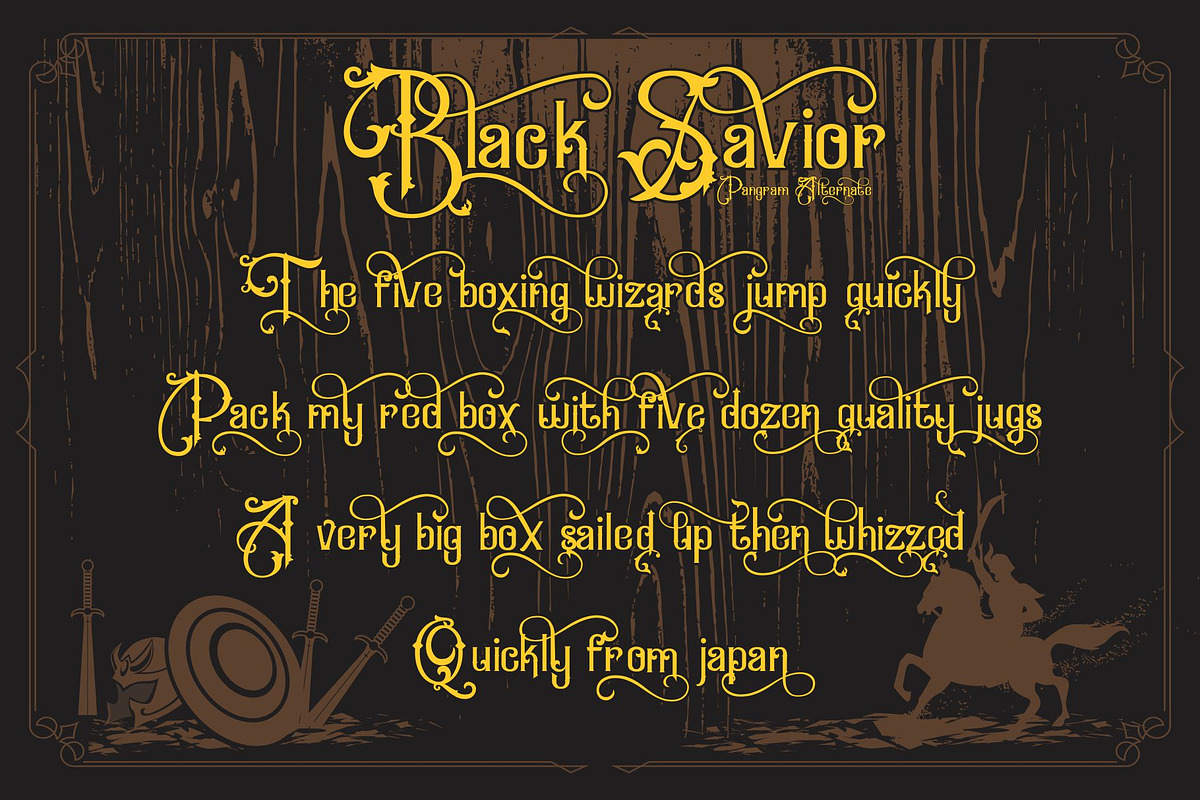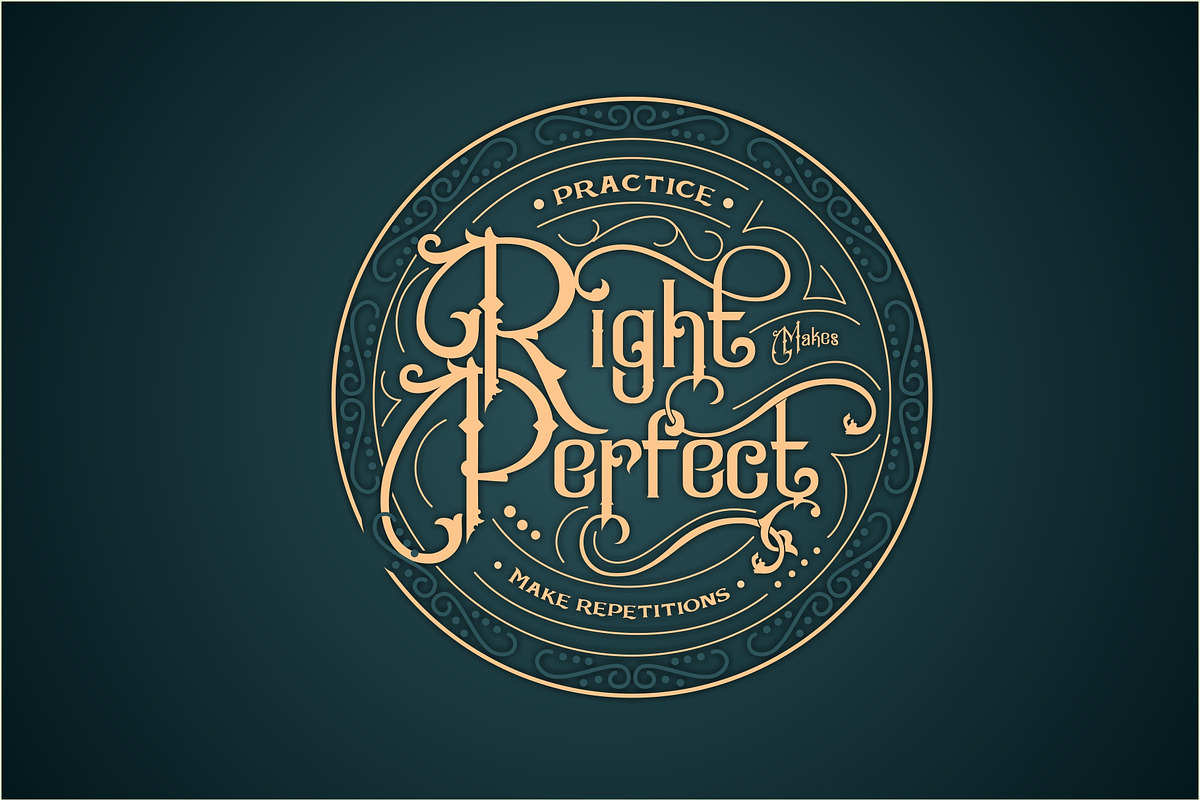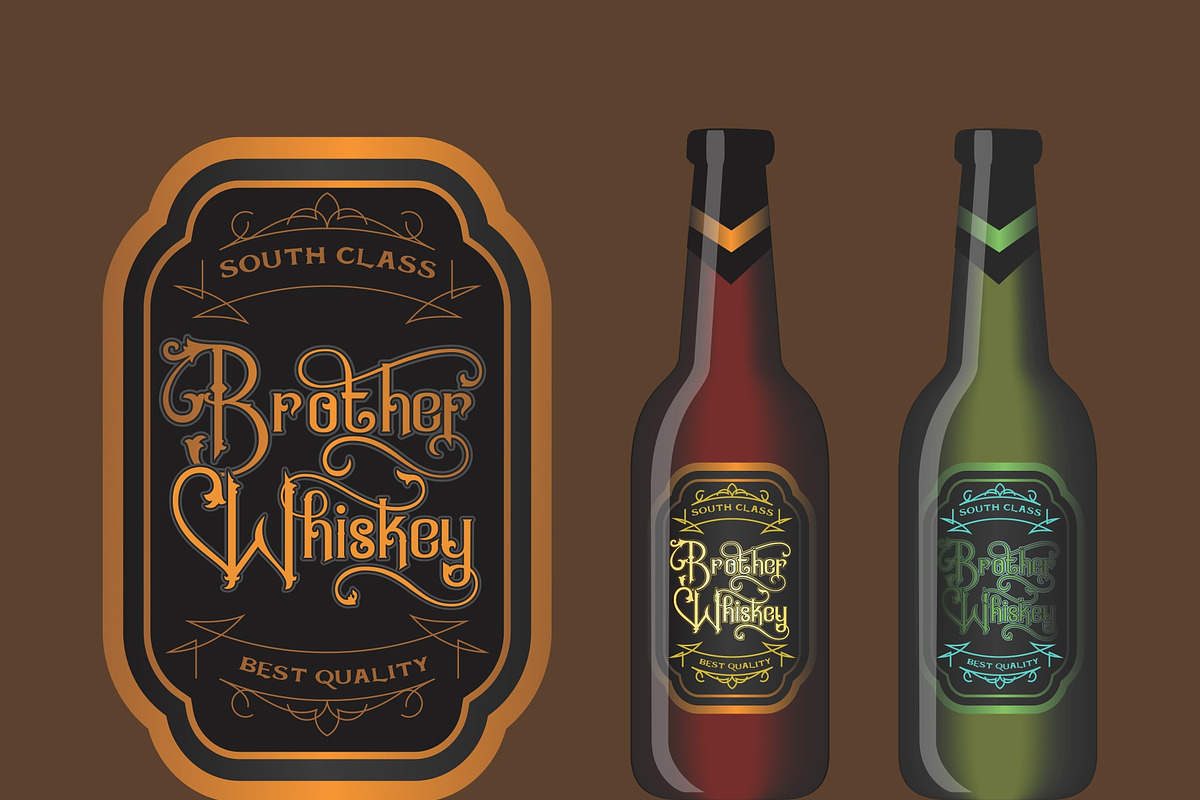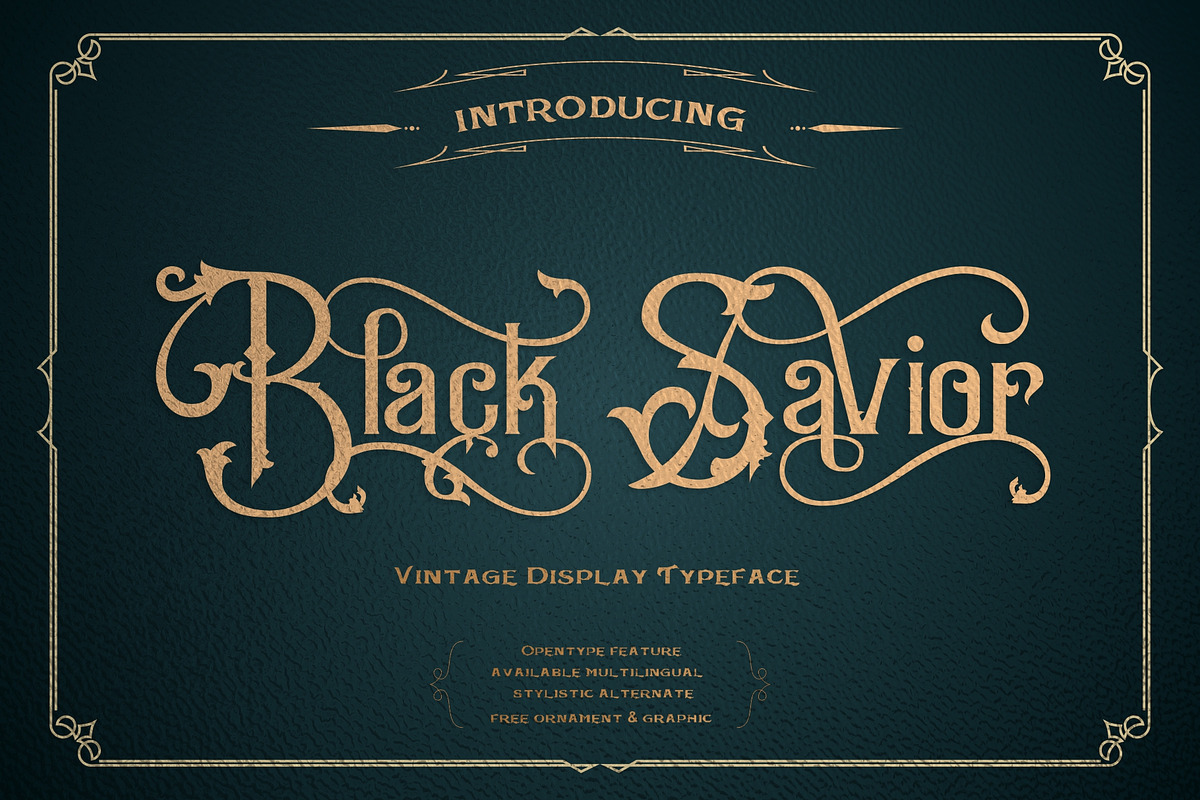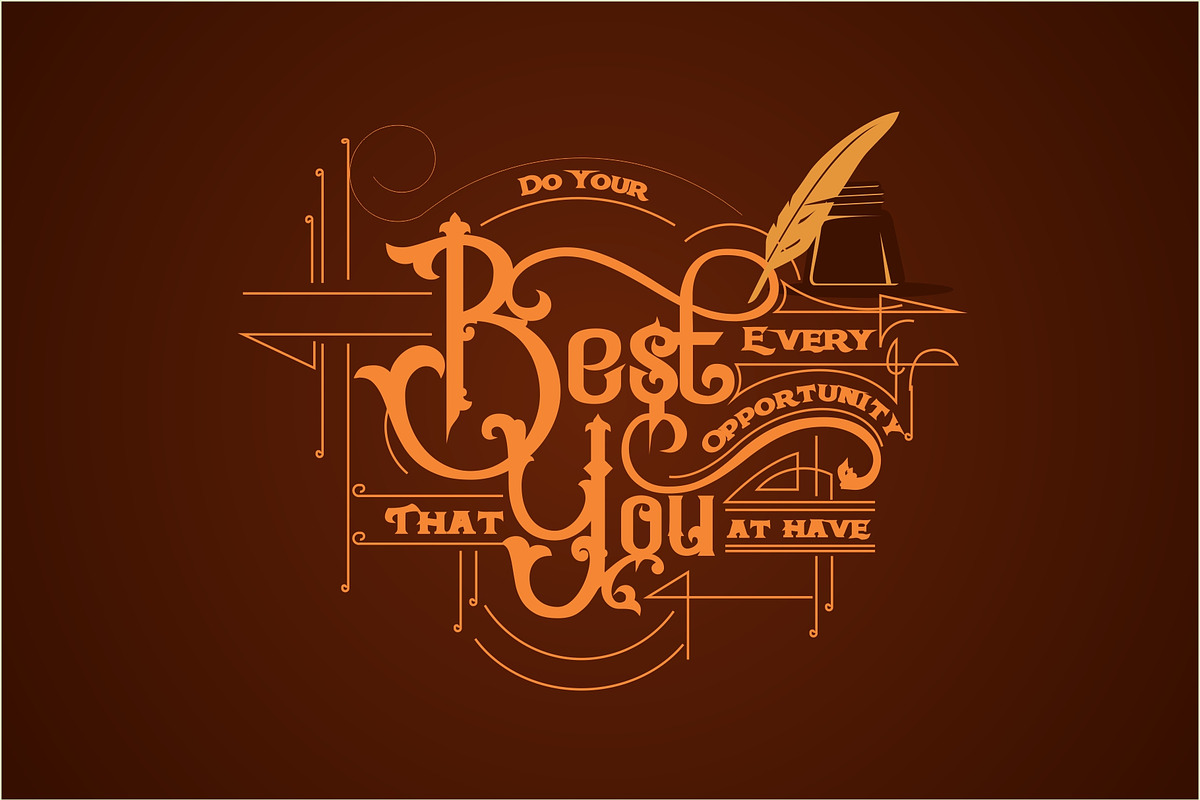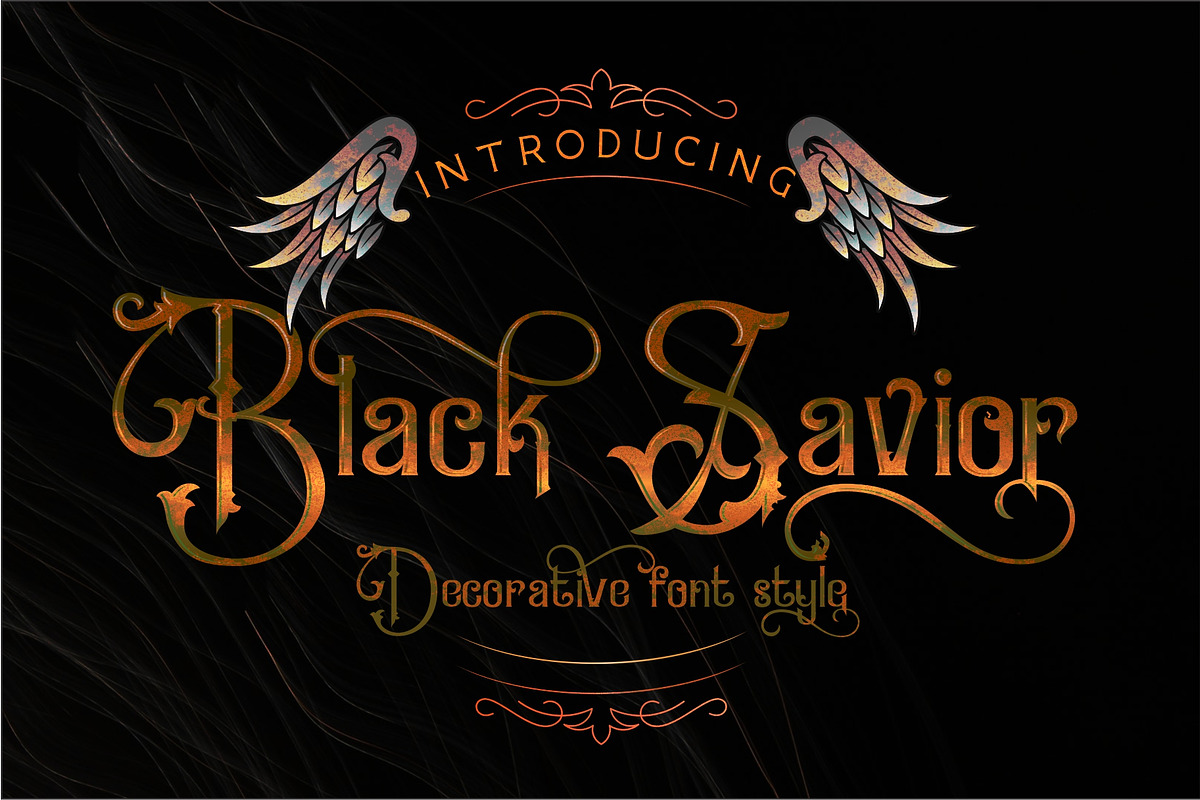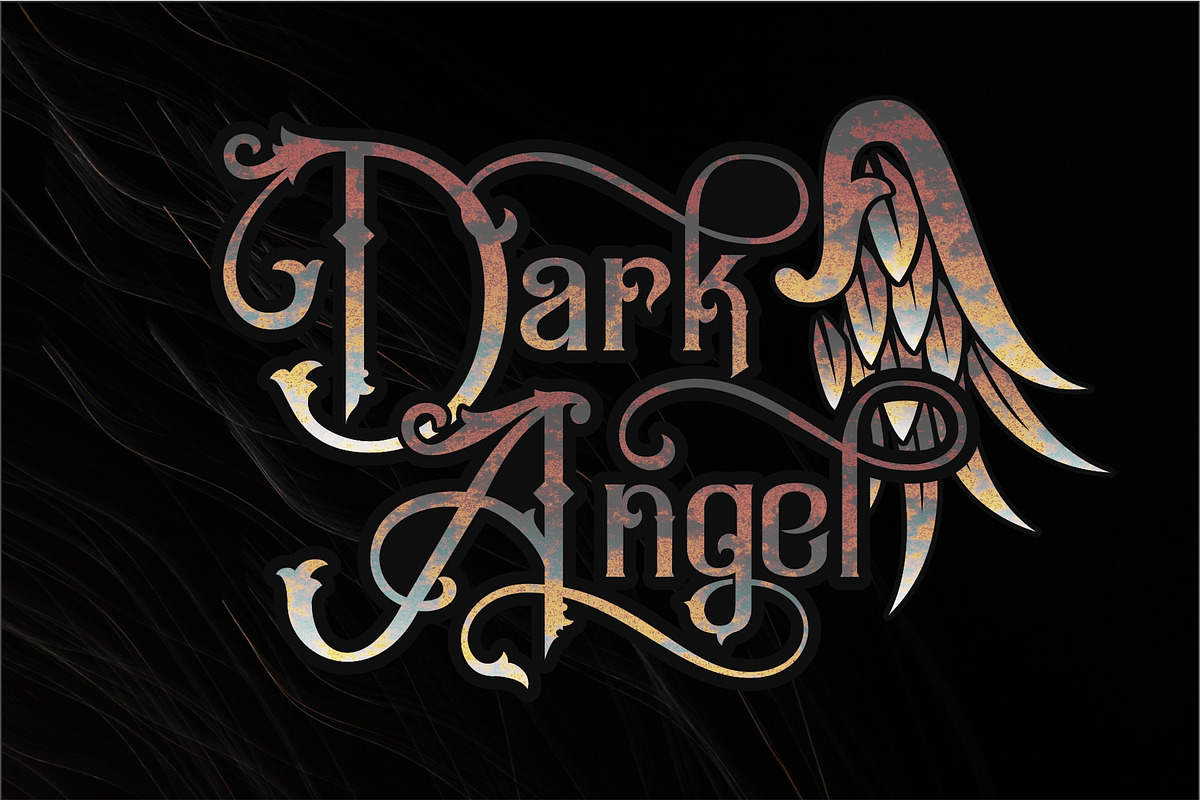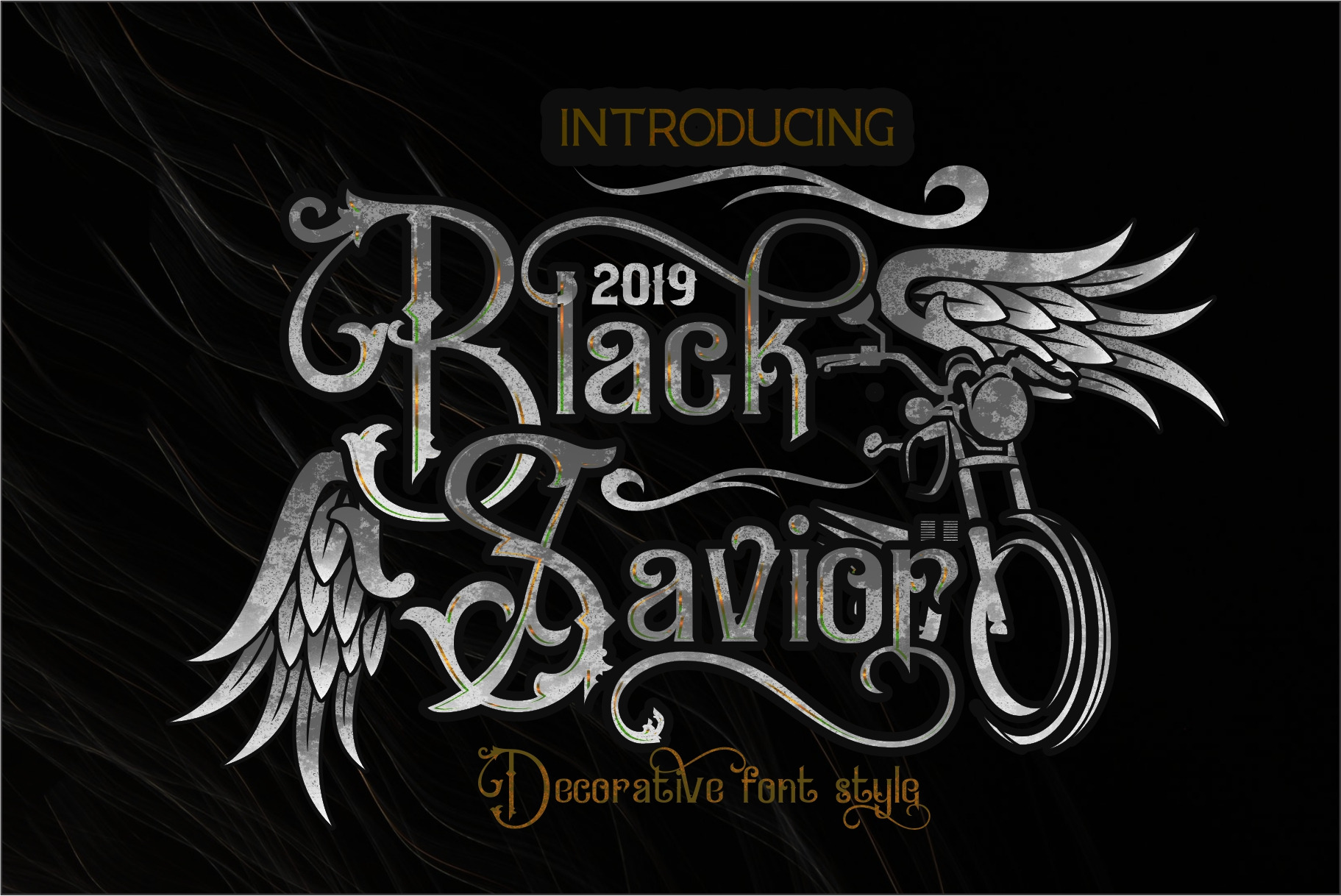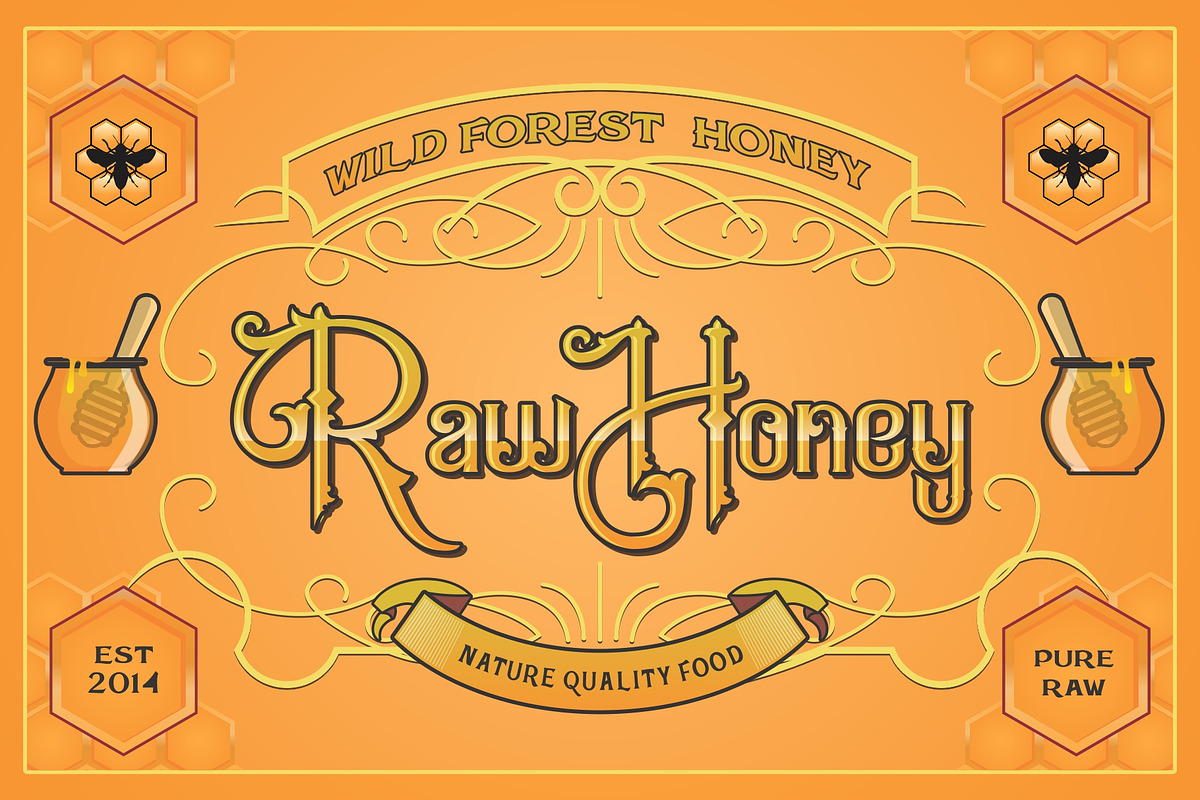
Black Savior Victorian retro Font
Black Savior is a display font that is used as a complement to designs with vintage themes, antique and unique classics, this font is inspired by ancient fonts, unique decorative and floral elements and adds to the distinctiveness of this font, this font also features the opentype feature.
- support international language
- stylistic alternate character reaches 8 variations
- ss01-ss08 -Graphic and frame ornaments. best for -typography lettering , Logo, Letterhead, Display Font, t-shirt design and others